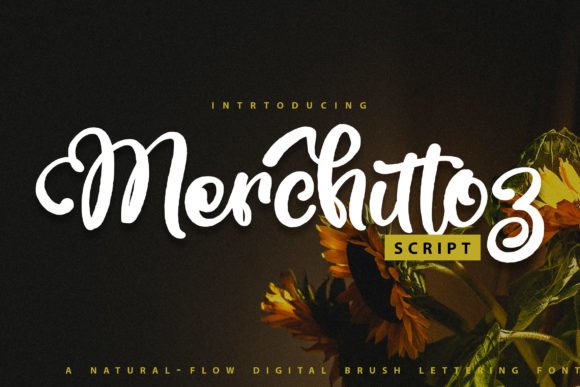
In the vast realm of typography, Merchittoz Font stands as a beacon of elegance and creativity, a script font poised to transform your design visions into breathtaking realities. Prepare to be captivated as Merchittoz's graceful swashes and meticulously crafted characters dance across your screen, leaving a trail of visual enchantment.
With Merchittoz as your font of choice, you'll embark on a journey of artistic liberation, where the boundaries of ordinary typography dissolve and your imagination takes flight. Whether you're crafting logos that exude sophistication, designing posters that ignite passion, or creating social media posts that demand attention, Merchittoz will elevate your designs to new heights.
Designed with precision and a keen eye for detail, Merchittoz possesses a charm that's both timeless and utterly captivating. Its PUA encoding grants you effortless access to a world of alternate glyphs and ligatures, empowering you to unleash your creativity without limits. Experience the joy of seamless integration as Merchittoz harmonizes flawlessly with a plethora of design software, including Cricut and Silhouette.
But Merchittoz is more than just a collection of digital characters; it's an invitation to embark on an artistic adventure where your designs become masterpieces. Whether you're a seasoned professional seeking to expand your typographic horizons or a budding enthusiast eager to leave your mark on the world of design, Merchittoz is your steadfast companion, ready to fuel your creative fire.
So, dive into the world of Merchittoz and let your imagination run wild. Experience the magic of a font that's not just visually stunning but also remarkably versatile, capable of breathing life into your every creative endeavor. From whimsical wedding invitations to striking branding materials, Merchittoz is your key to unlocking a world of design possibilities that will leave you breathless.
Don't let ordinary fonts hold you back. Embrace the power of Merchittoz and witness the transformation of your designs into works of art. Dare to be different, dare to be bold, and dare to let your creativity shine through. Let Merchittoz be your guide as you embark on a journey of typographic exploration, leaving a lasting impression on the world with every design you create.